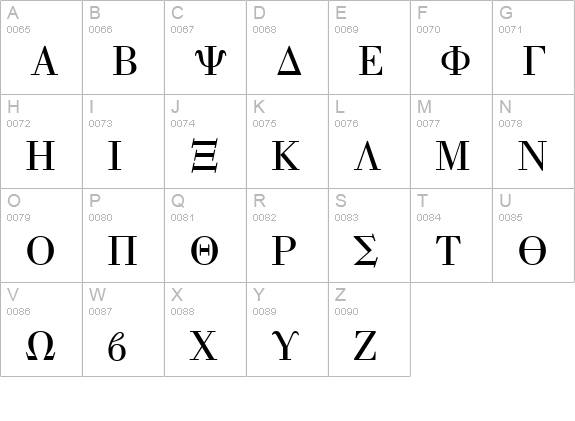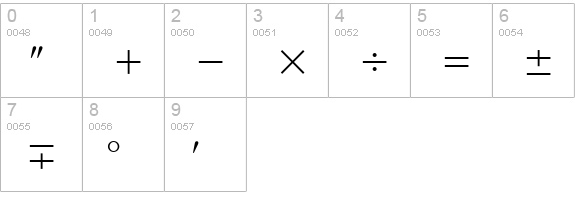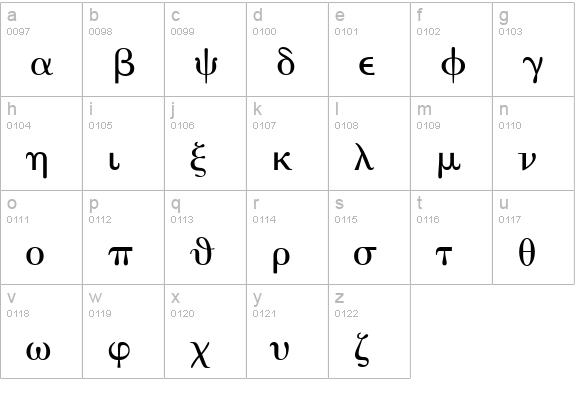
Eisago Greek SSi Font Details
Eisago Greek SSi font is a stunning and elegant typeface that captures the beauty of the Greek language with its exquisite design. This font exudes sophistication and style, making it perfect for a wide range of design projects, from branding to editorial layouts. The intricate details of each letter showcase the craftsmanship and attention to detail that went into creating this masterpiece. What makes Eisago Greek SSi font even more impressive is the fact that it is available for free download at FontsMarket.com. This means that you can easily access this high-quality font without any cost, making it a valuable addition to your font library. With Eisago Greek SSi font, you can elevate your designs and bring a touch of Greek charm to your projects.